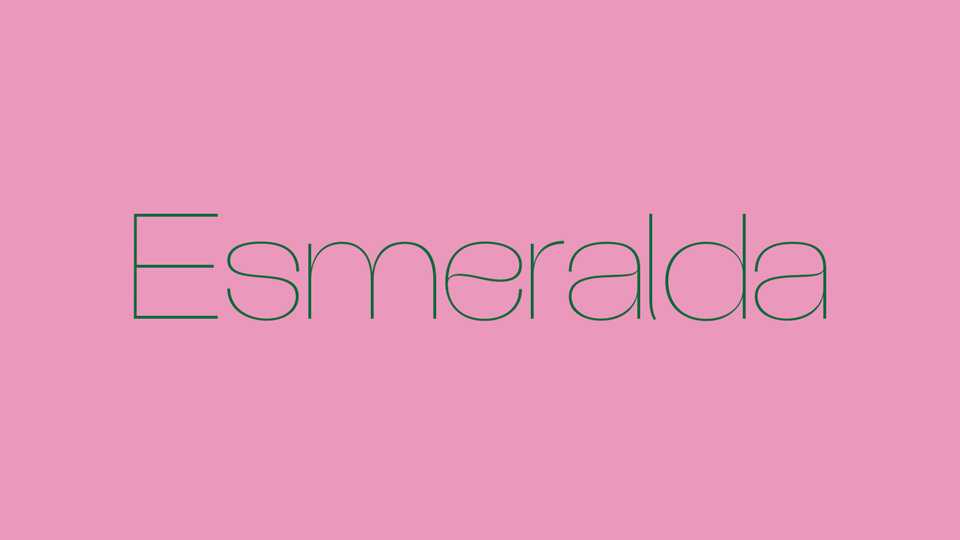
Download Esmeralda font, an extremely light and elegant sans serif typeface with smooth curves and wide proportions. Esmeralda font works best for large sizes, is suitable for branding and editorial use.
Designer: Bastien Tessanne